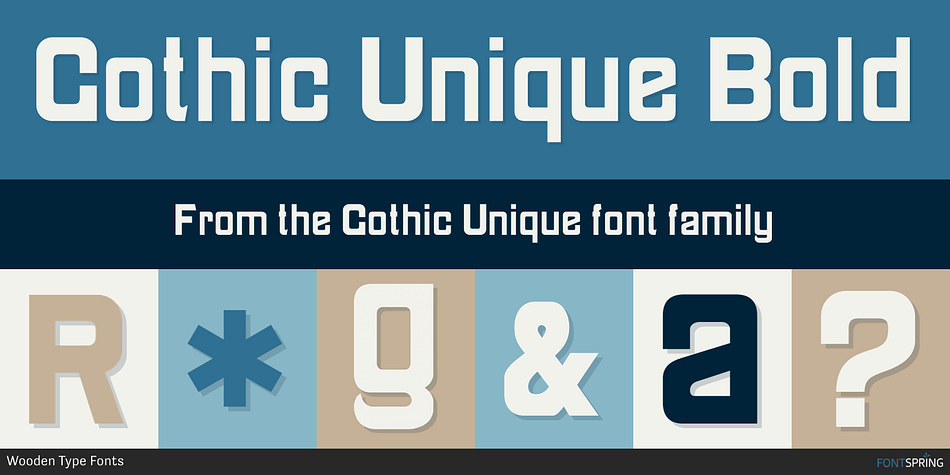
Gothic Unique Bold
Designed by Jordan Davies, Gothic Unique is a display sans font published by Wooden Type Fonts.
Gothic Unique is a revival of an unusual wooden type font of the 19th century.
Gothic Unique is a revival of an unusual wooden type font of the 19th century. It is a bold sans serif suitable for display.